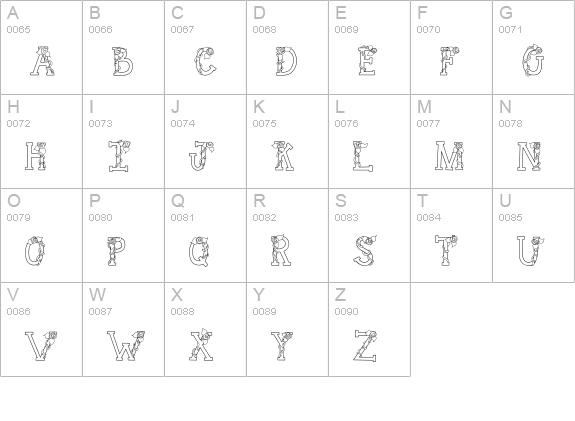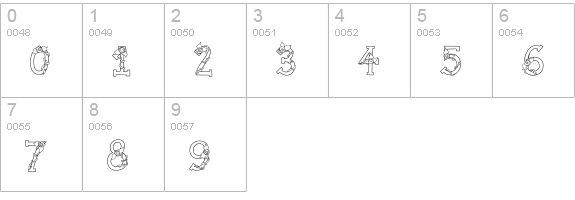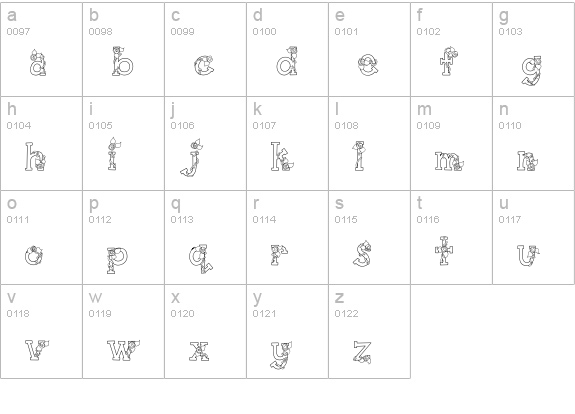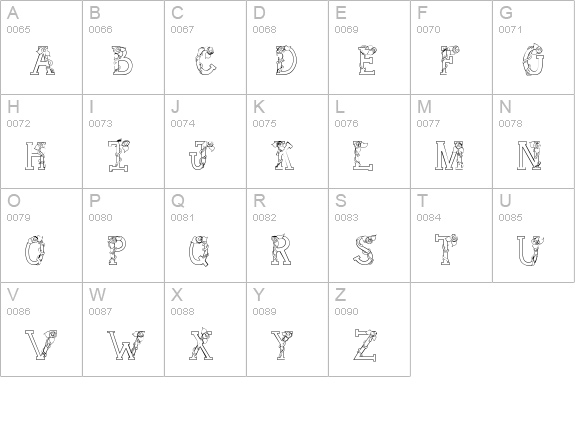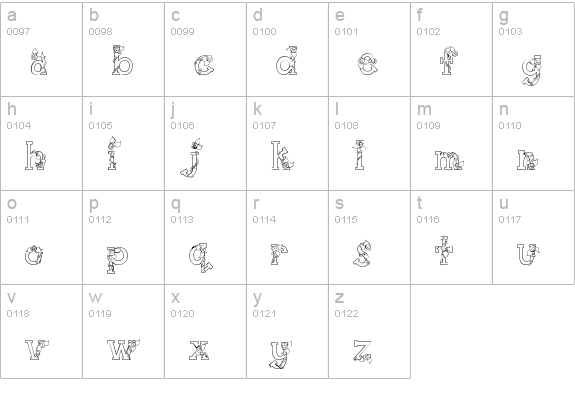
CK Trellis Font Details
CK Trellis font is a beautiful and elegant typeface that exudes sophistication and style. With its intricate design reminiscent of a delicate trellis pattern, this font is perfect for adding a touch of refinement to your designs. The flowing lines and intricate details of CK Trellis make it a versatile choice for a wide range of projects, from wedding invitations to branding materials. What's even better is that CK Trellis font is available for free download at FontsMarket.com. This means you can easily incorporate this stunning font into your projects without any cost. Whether you're a designer looking for a unique typeface or someone who simply appreciates beautiful typography, CK Trellis font is sure to impress with its timeless charm and versatility. Download it today and elevate your designs with this exquisite font.